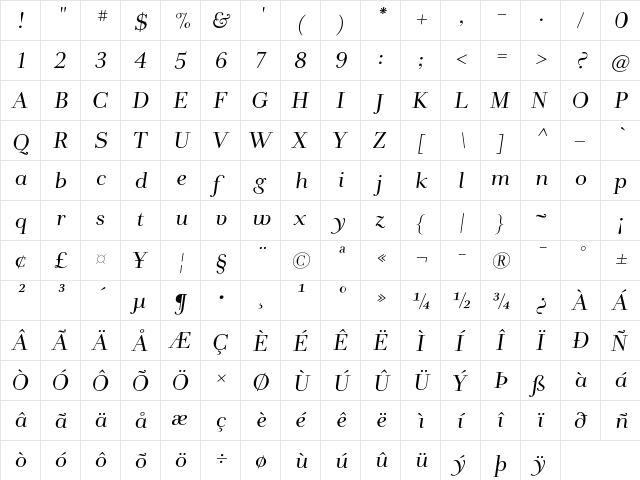
Andrade Pro Italic
| Foundry | Dino dos Santos _DSType |
| Designer | Dino dos Santos |
Design Context for Andrade Pro Typeface
Andrade Pro takes a measured approach to typography — its balanced proportions and neutral character make it a reliable workhorse for both digital and print work. Its italic angle brings a sense of urgency and motion to the letterforms.
Pro Tip: Use Andrade Pro for emphasis, pull quotes, and subheadings where its slanted energy can add rhythm to the layout.